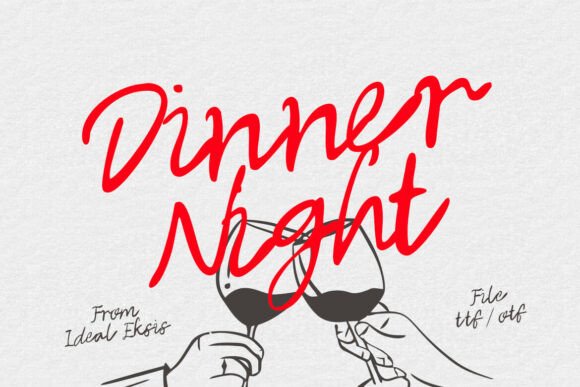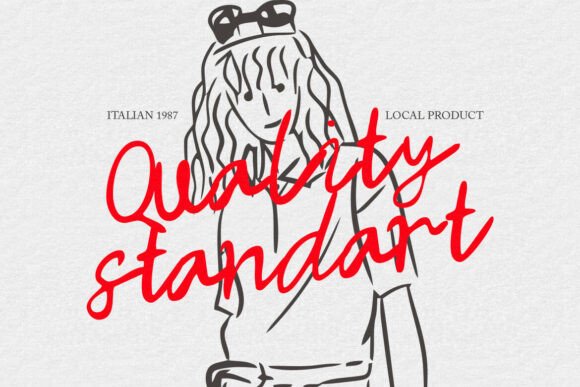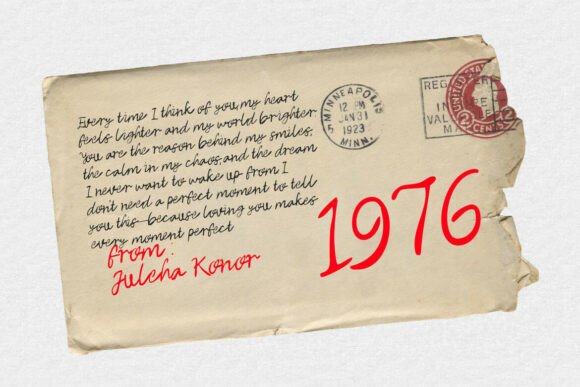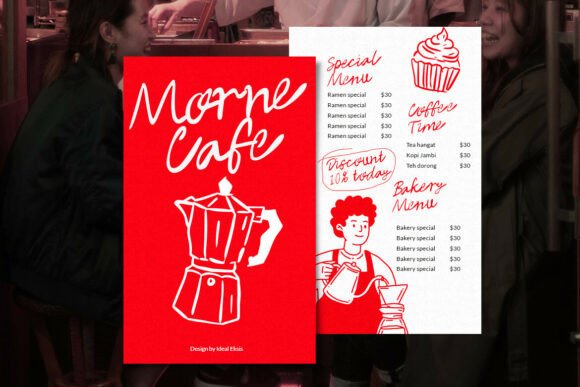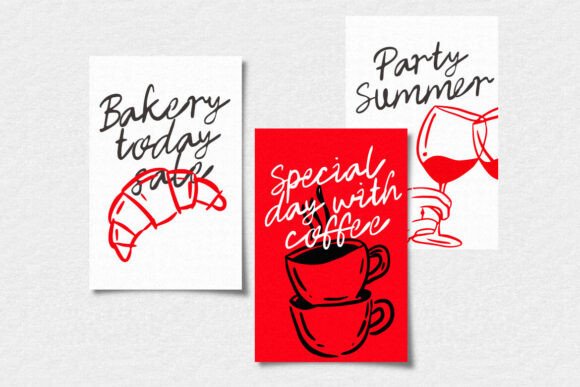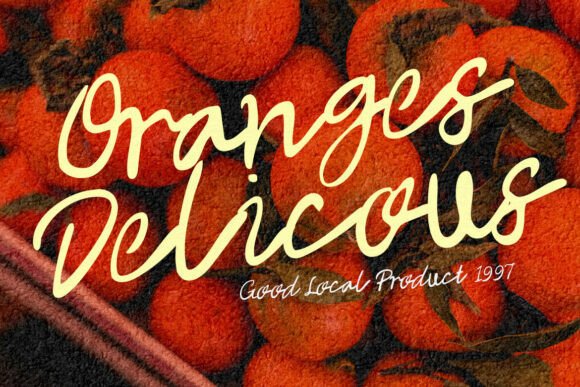
Discover the Energetic Charm of Betah Script Font
Remember that moment when you first picked up a brush and began to paint? The way the strokes flowed effortlessly, as if guided by an unseen force, leaving behind a trail of vibrant color and texture? That’s exactly what you’ll experience when working with the Betah Script Font – a dynamic and exuberant typeface that captures the essence of hand-drawn brush strokes.
Designed to add a touch of organic variability and rhythm to your designs, Betah Script Font is perfect for creating impactful branding initiatives, attention-grabbing social media graphics, and imaginative posters that demand a distinctive, handcrafted style. Its bold and vibrant red hue, combined with textured strokes reminiscent of ink on paper, lends this typeface a layer of authenticity and depth that’s hard to resist.
- Unique Characteristics: Betah Script Font features a distinctive, handwritten style with elegant connections between letters, giving it a personal and artistic touch.
- Script and Cursive Styles: The font includes both script and cursive styles, allowing users to choose the perfect look for their text, from formal to informal.
Betah Script Font Review
Overall, I think Betah Script Font is a beautiful, elegant script font that can add a touch of sophistication to any design project. ✨ The flowing connections between letters make it perfect for titles, headings, and even body text in creative industries like publishing, advertising, or packaging design.
- ✨ Beautifully connected letterforms that create a sense of movement and flow.
- ✨ Elegant and refined feel that’s perfect for high-end branding or luxury products.
- ✨ Wide range of weights and styles to choose from, making it versatile and adaptable to different design needs.
- ⚠️ May be too ornate or cursive for some design projects that require a more modern or minimalist look.
- ⚠️ Not as legible in small sizes or at a distance, which may limit its use in certain applications.
- ⚠️ Can be prone to overuse, so it’s essential to balance its use with other fonts to avoid visual fatigue.
Overall, Betah Script Font is a great choice for designers who want to add a touch of elegance and sophistication to their projects. Just be mindful of its limitations and use it thoughtfully to achieve the best results.
For the best results, use Betah Script Font in designs where you want to convey a sense of elegance, sophistication, or creativity. It’s particularly well-suited for wedding invitations, birthday cards, and other special occasion designs. To get the most out of the font, experiment with different font sizes, colors, and combinations with other fonts.